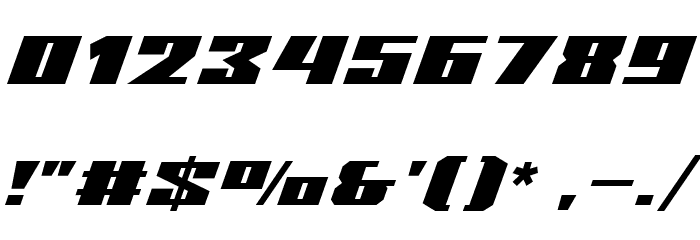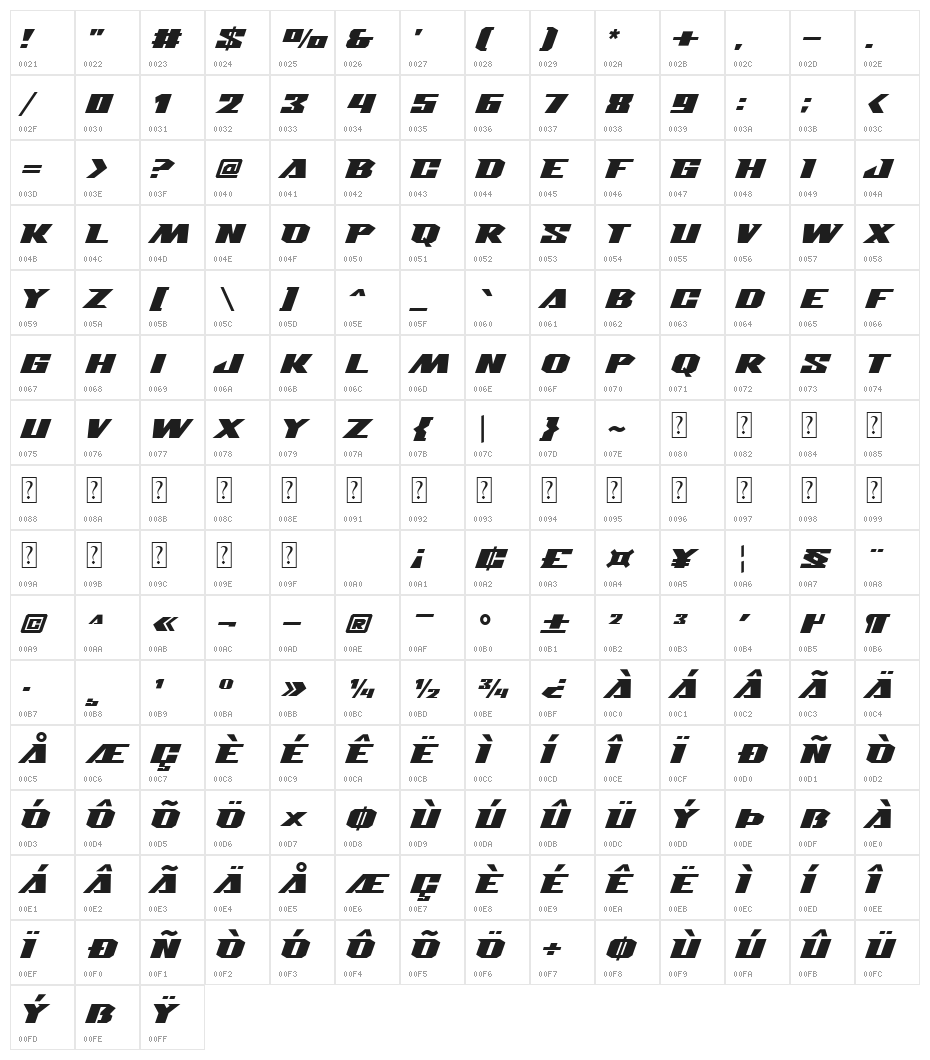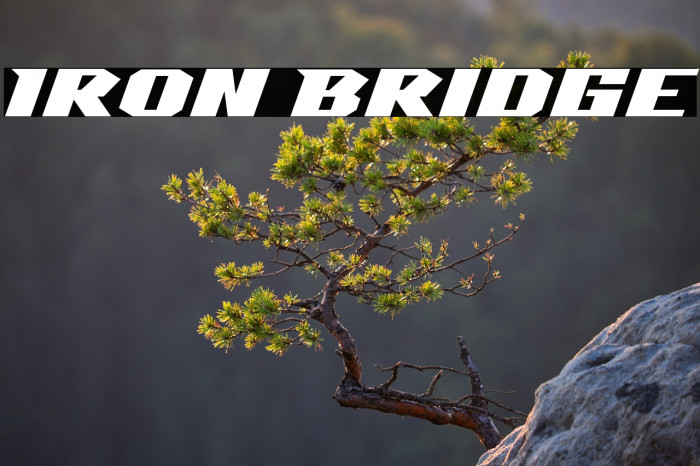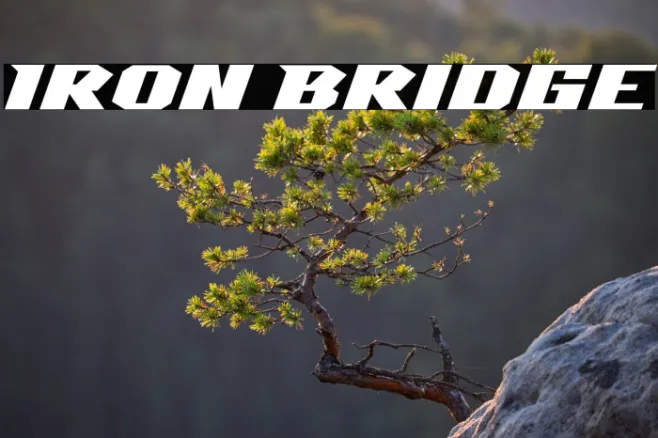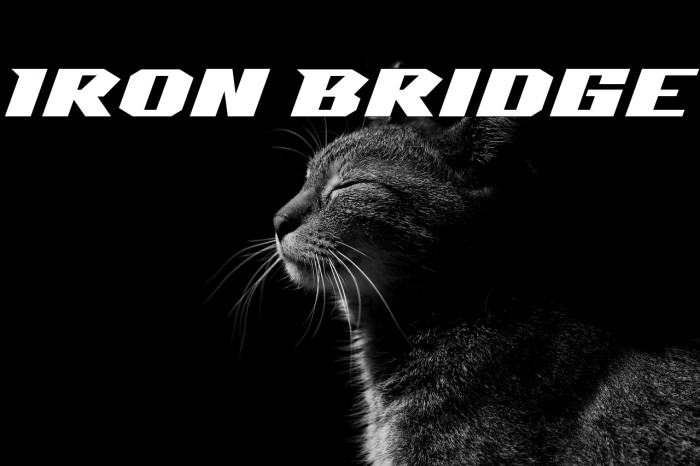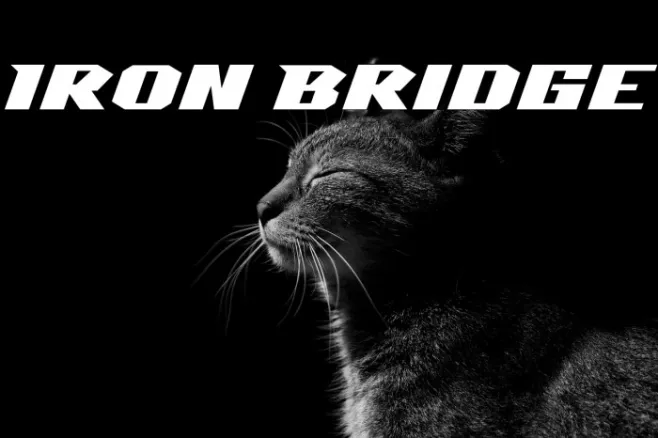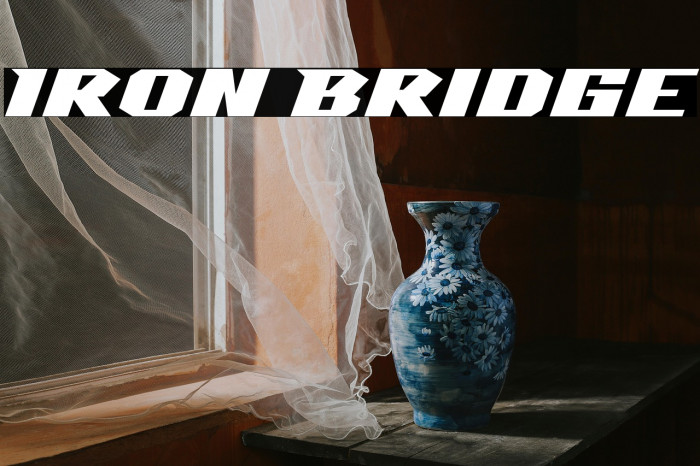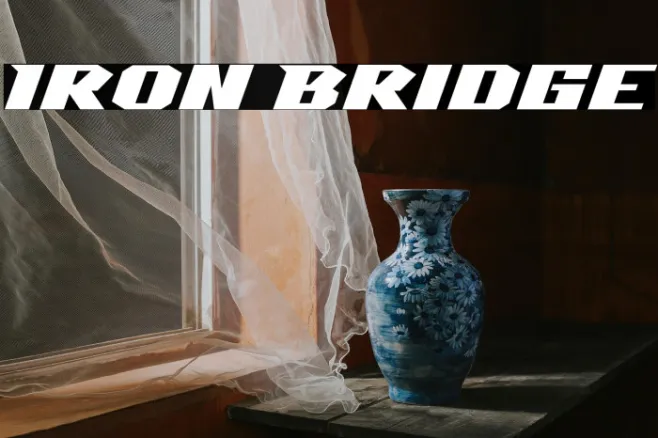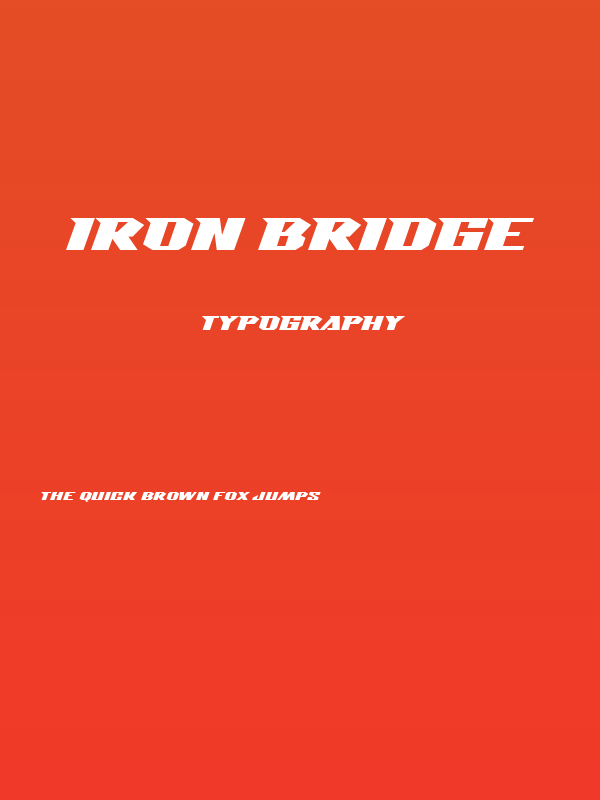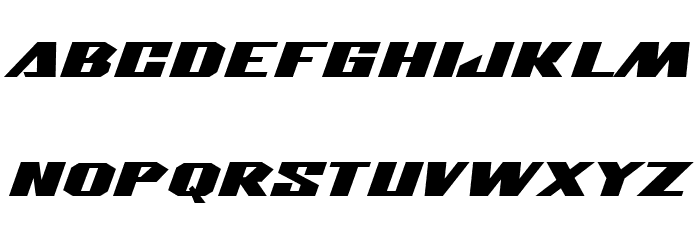
Iron Bridge Font
Iron Bridge Description
This font features a bold, angular design with a strong geometric influence. The characters are sharply cut with a dynamic slant, giving a sense of movement and energy. The uppercase and lowercase letters maintain a consistent style, with thick strokes and sharp edges that create a striking visual impact. The numerals and special characters follow the same bold and angular aesthetic, ensuring uniformity across all glyphs. This font is ideal for projects that require a modern and assertive look, making it suitable for branding, headlines, and display purposes.
| Use Case | Headlines, Logos, Display |
| Proposed Projects | Ideal for branding, headlines, posters, and any project needing a modern, assertive look. |